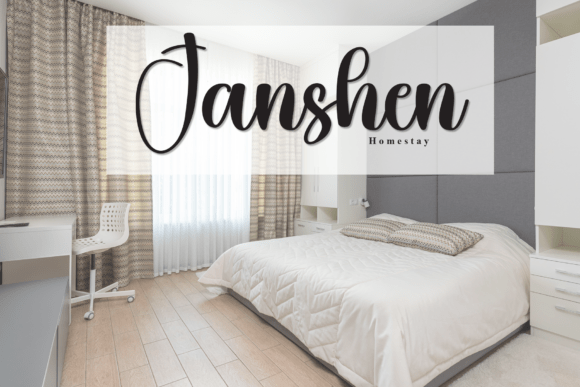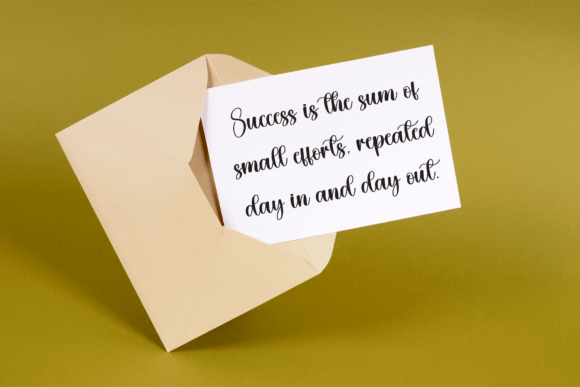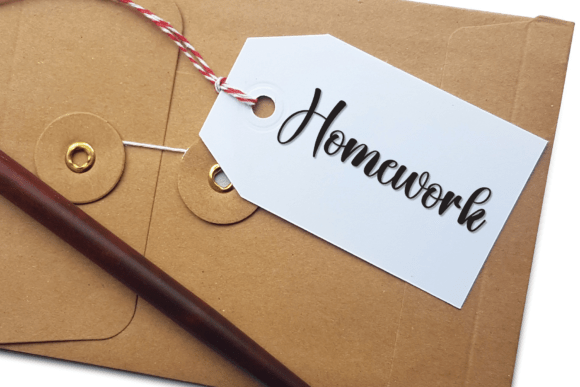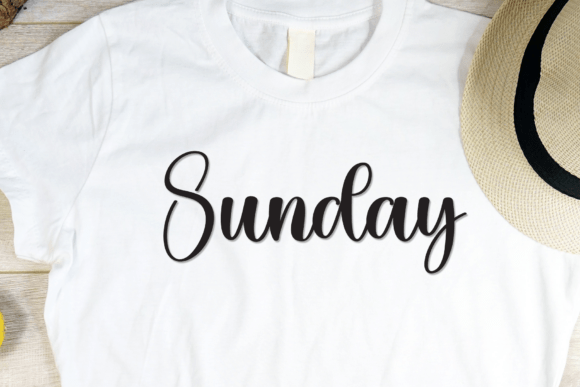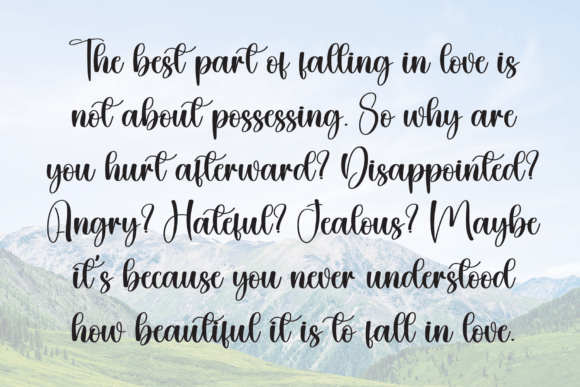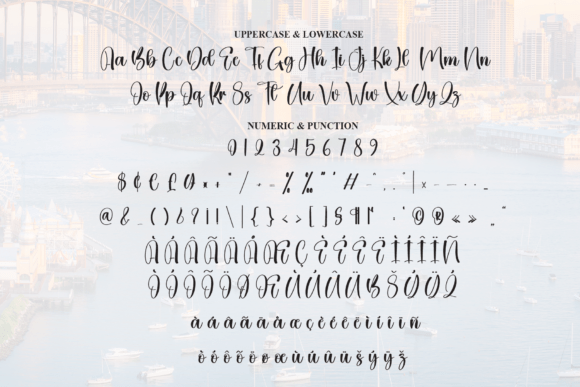
Australia Font: Elevate Your Design with a Touch of Elegance
Are you on the lookout for a unique and creative typeface that can add a touch of sophistication to your design projects? Look no further than the Australia Font, a modern lettering style that is perfect for creating extraordinary designs. This elegant, handwritten font is ideal for a wide range of applications, including wall art, wedding invitations, social media logos, advertisements, product packaging, branding, labels, photography, watermarks, stationery, and more.
What Makes Australia Font So Special?
The Australia Font is a special creative typeface that is designed to add a touch of elegance and sophistication to your design projects. Its modern lettering style is perfect for creating unique and eye-catching designs that will set you apart from the crowd. With its elegant, handwritten flair, this font is sure to impress your clients and elevate your brand to the next level.
Why Choose Australia Font?
So why choose the Australia Font for your design projects? Here are just a few reasons:
- Elegant, handwritten flair: The Australia Font features a beautiful, handwritten style that adds a touch of sophistication to any design.
- Versatility: The font is perfect for a wide range of applications, from wall art to wedding invitations, social media logos, and more.
- Unique and eye-catching: The Australia Font is a unique and creative typeface that will help you stand out from the crowd.
How to Use Australia Font
- Experiment with different sizes and colors: The Australia Font looks great in a variety of sizes and colors, so don’t be afraid to experiment.
- Pair with other fonts: The Australia Font pairs well with other fonts, so try combining it with different typefaces to create a unique look.
- Use in digital and print designs: The font is perfect for both digital and print designs, making it a versatile addition to your font library.
In conclusion, the Australia Font is a special creative typeface that is perfect for designers and crafters looking to add a touch of elegance to their design projects. With its modern lettering style, elegant, handwritten flair, and versatility, this font is sure to impress. Whether you’re creating wall art, wedding invitations, social media logos, or more, the Australia Font is the perfect choice. So why wait? Download the Australia Font today and start creating extraordinary designs!